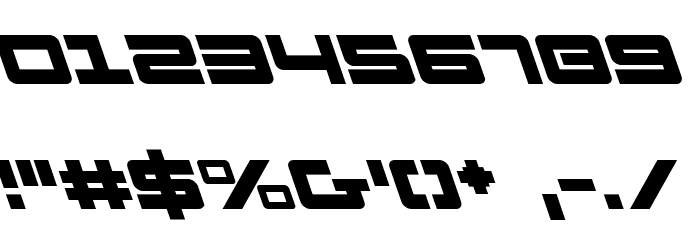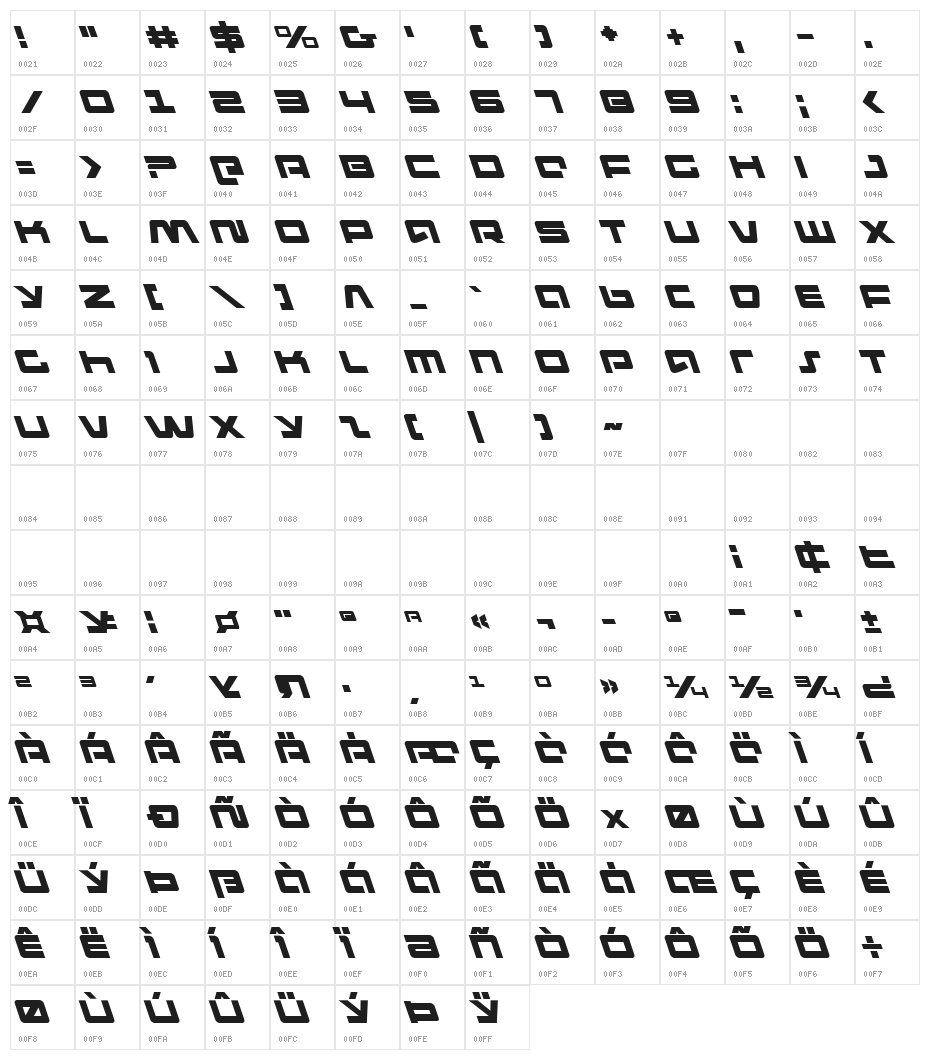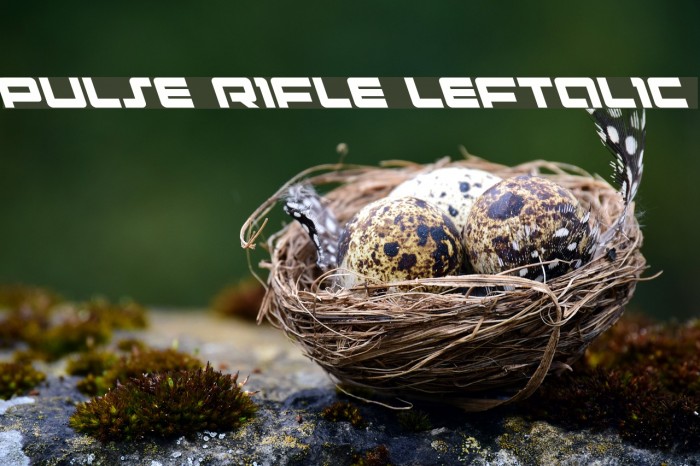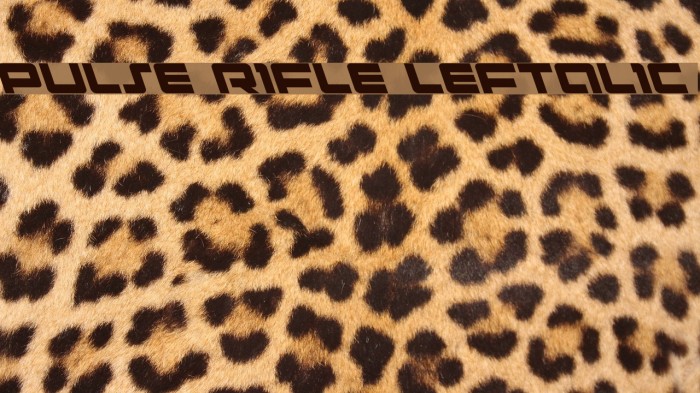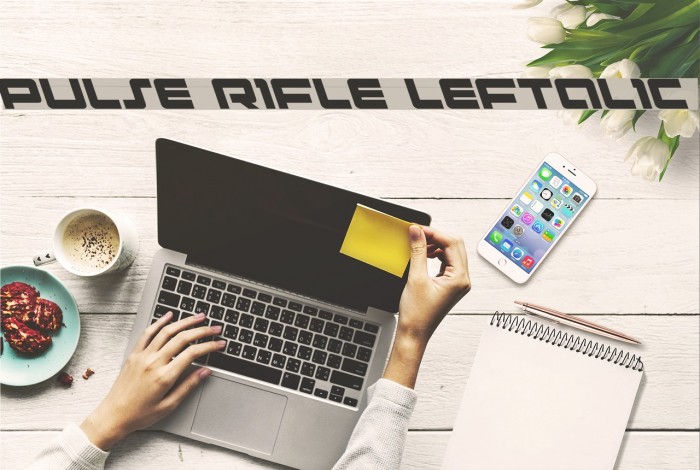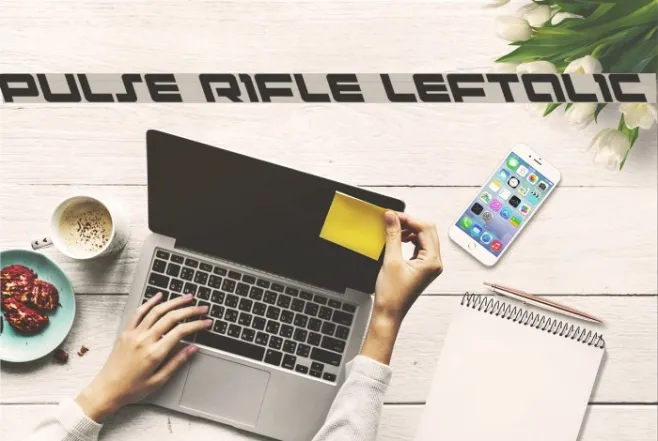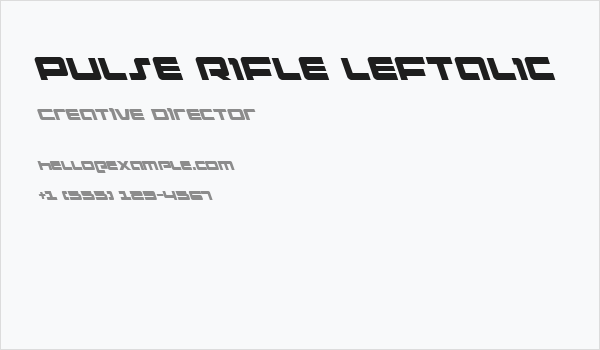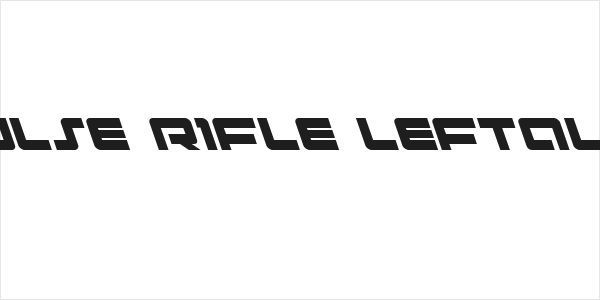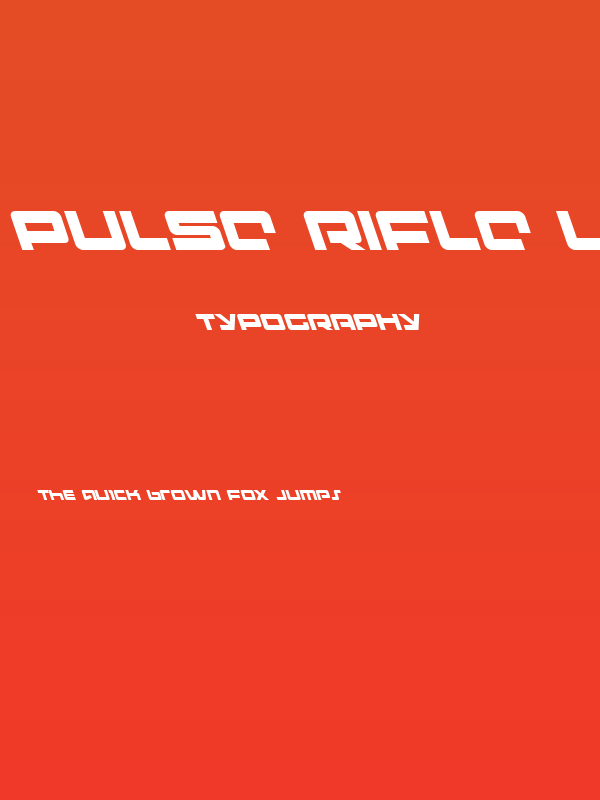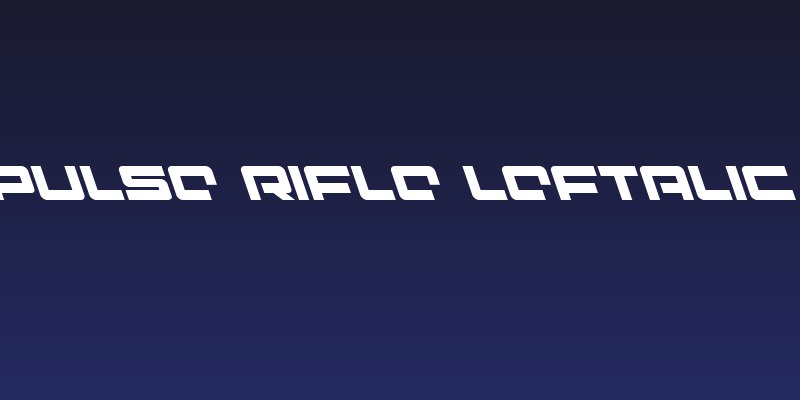
Pulse Rifle Leftalic Font
Pulse Rifle Leftalic Description
This font features a futuristic and angular design, characterized by its bold and dynamic appearance. The letters are slanted, giving an italicized effect, and are constructed with sharp edges and geometric shapes. The uppercase and lowercase letters maintain a consistent style, with a strong emphasis on horizontal and diagonal lines. The numbers and special characters follow the same design principles, ensuring uniformity across all glyphs. This font's unique style makes it stand out, ideal for projects that require a modern and edgy look.
| Proposed Projects | Ideal for sci-fi themed designs, video game graphics, tech branding, and futuristic posters. |